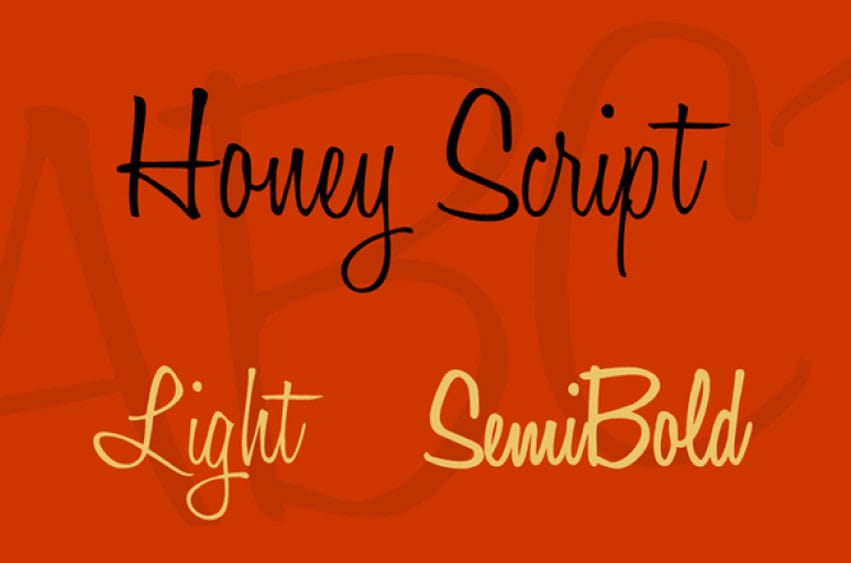
Honey Script Font Today we are pleased to present the Honey Script Font family, designed by experienced type designer Dieter Steffmann. With its sophisticated style and multitude of amazing features, Honey Script Font provides a valuable resource for creating designs using different techniques. Take a look at its texture in the pictures we provided for an idea of how your design might turn out after applying this font family.
Handwritten font is available in two distinct styles – Light and Semi Bold – making it suitable for various design uses from headlines to everyday projects. Both font styles support Truetype format; for optimal use they require 220 characters for both characters.